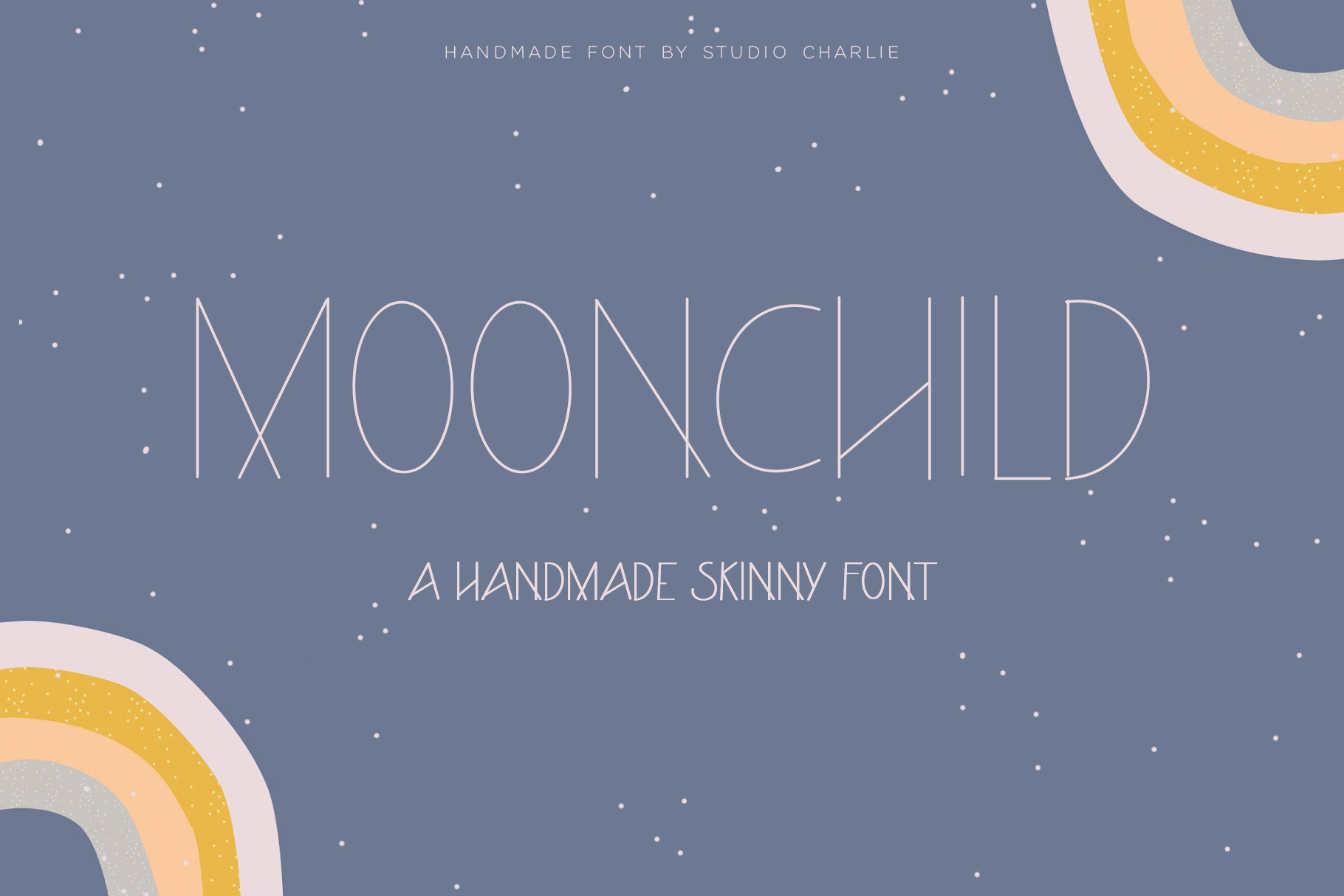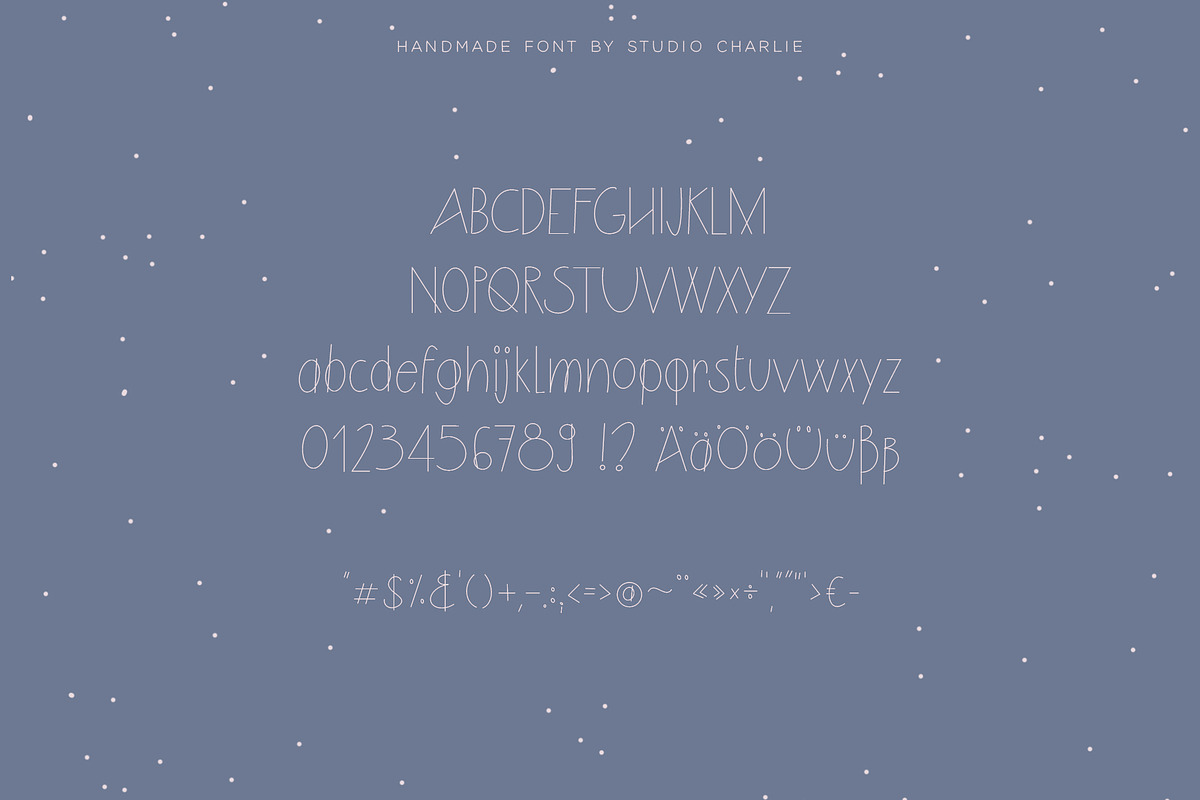
Moonchild - A Stylish Skinny Font
Moonchild is a skinny and stylish sans serif font that supports English and German characters. The OTF font file comes with a full alphabet of both lower- and uppcase letters as well as numbers and punctuation. Some extra glyphs have been added for fun writing.